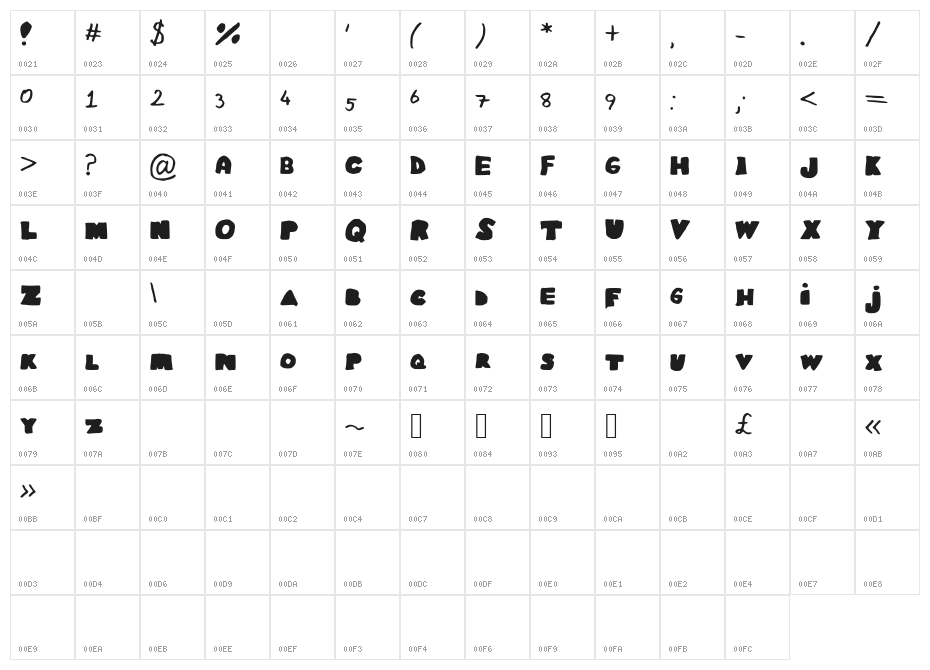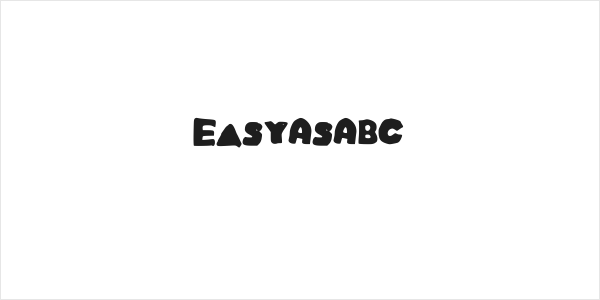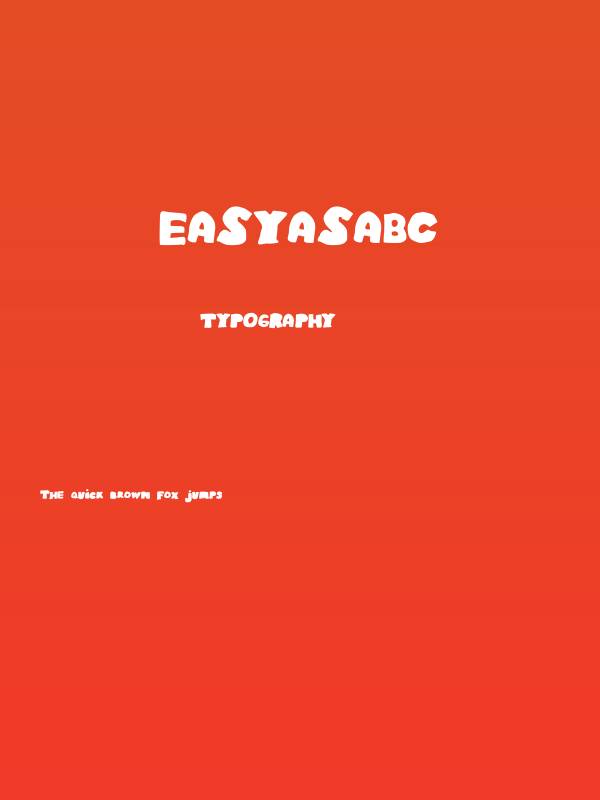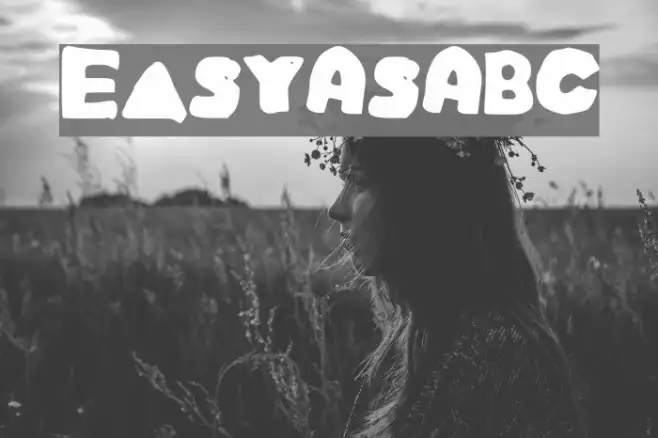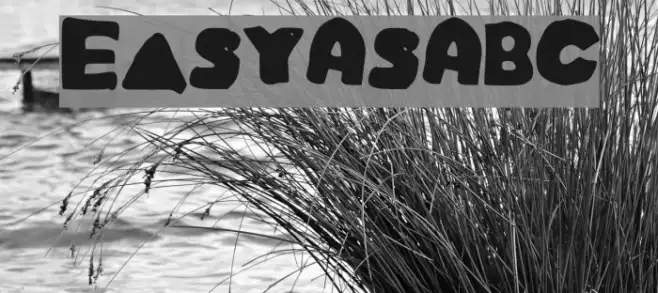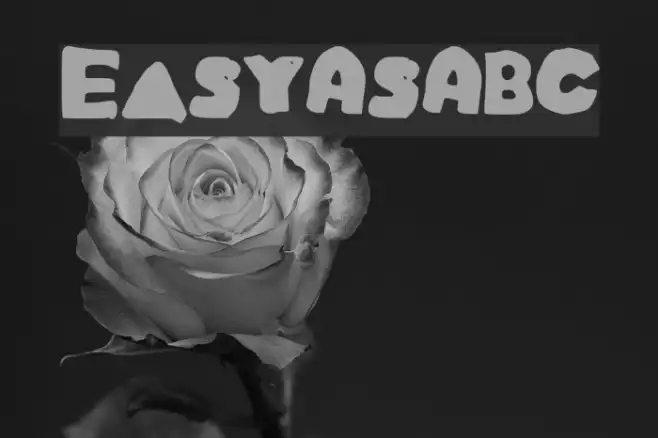
EasyAsABC Font
EasyAsABC Description
This font features a bold, playful style with a hand-drawn appearance. The characters are thick and rounded, giving them a friendly and approachable look. The uppercase and lowercase letters maintain a consistent weight, contributing to a cohesive design. The numbers and special characters follow the same aesthetic, ensuring uniformity across all glyphs. The overall appearance is informal and whimsical, making it suitable for creative and fun projects. The font's unique character shapes and bold presence make it stand out, perfect for grabbing attention.
| Proposed Projects | Ideal for children's books, playful branding, posters, and creative invitations. |